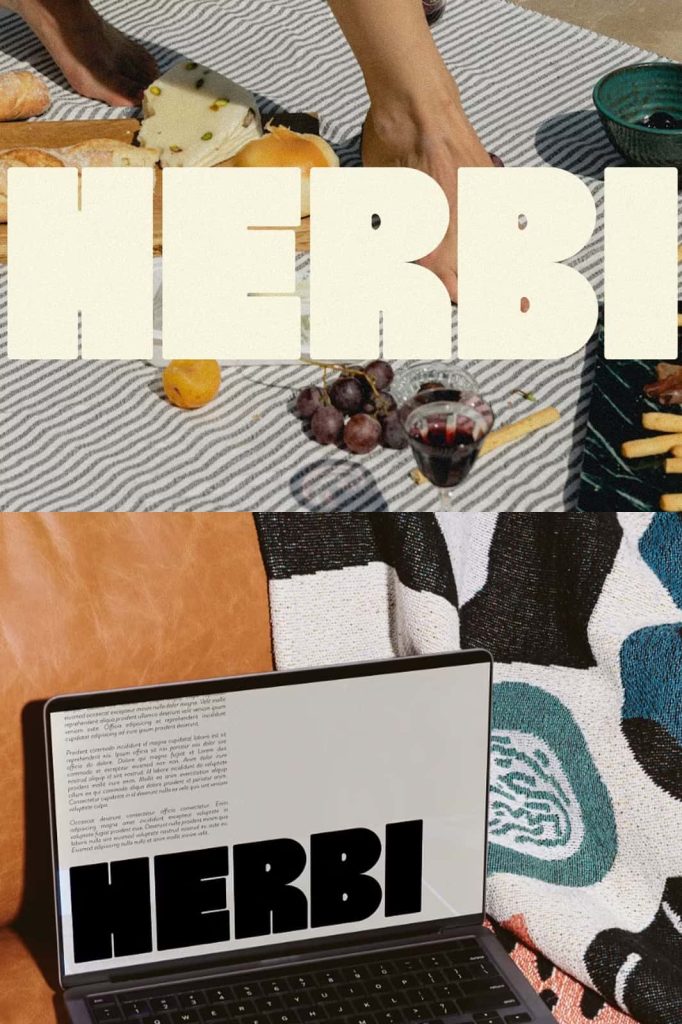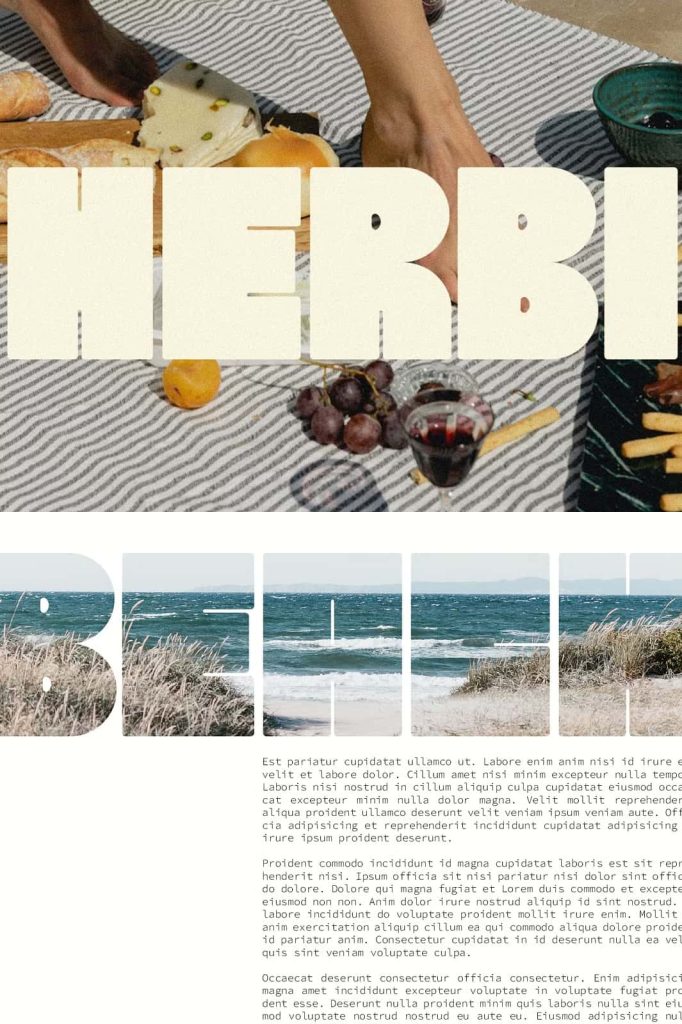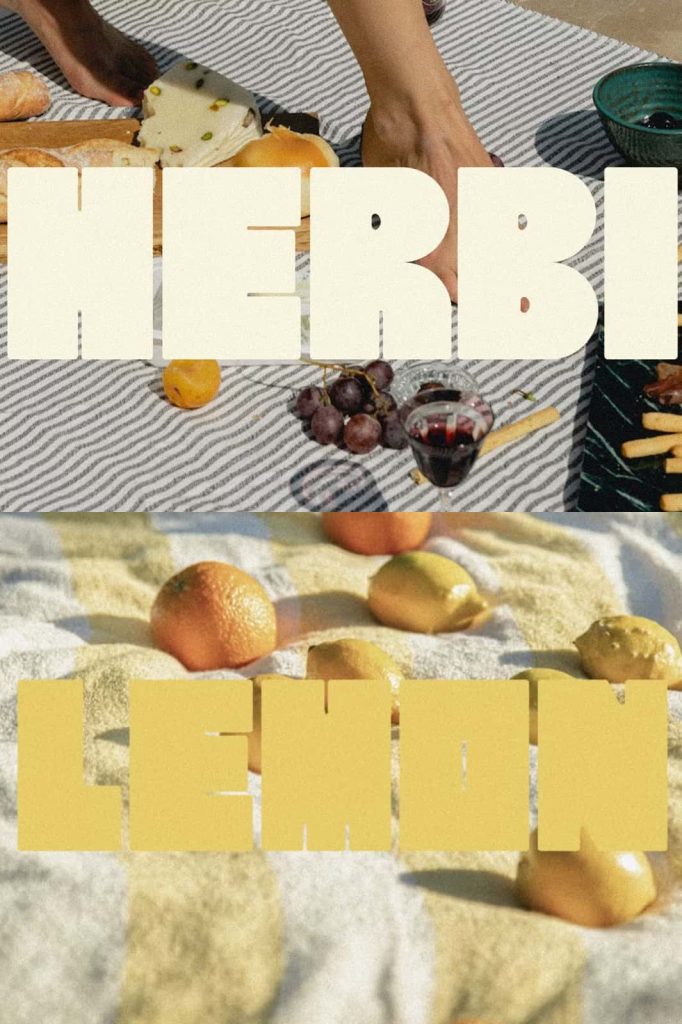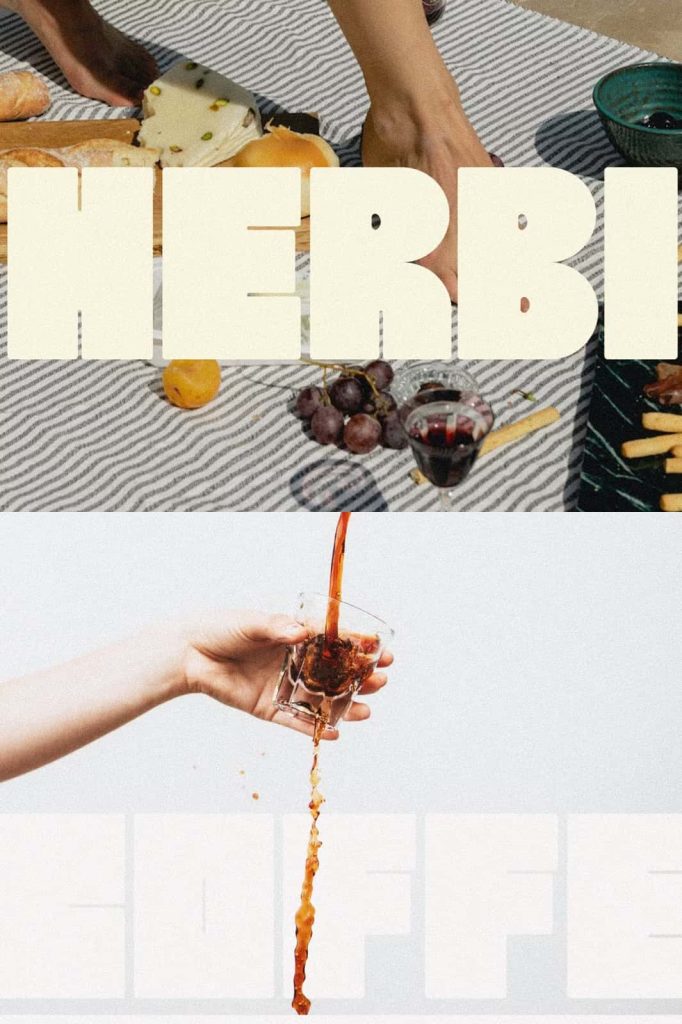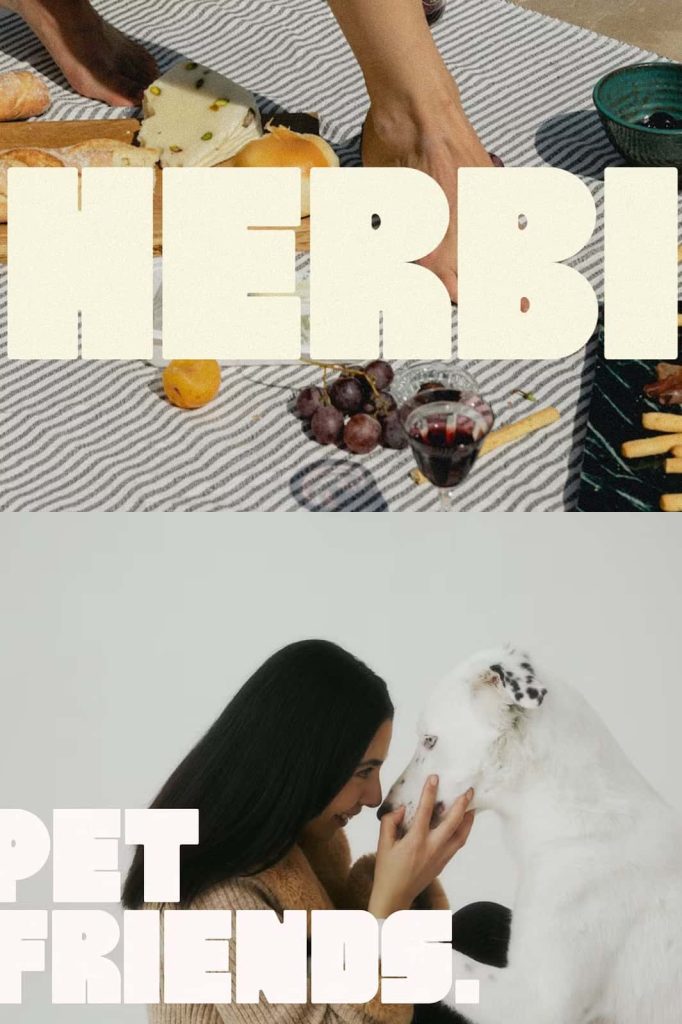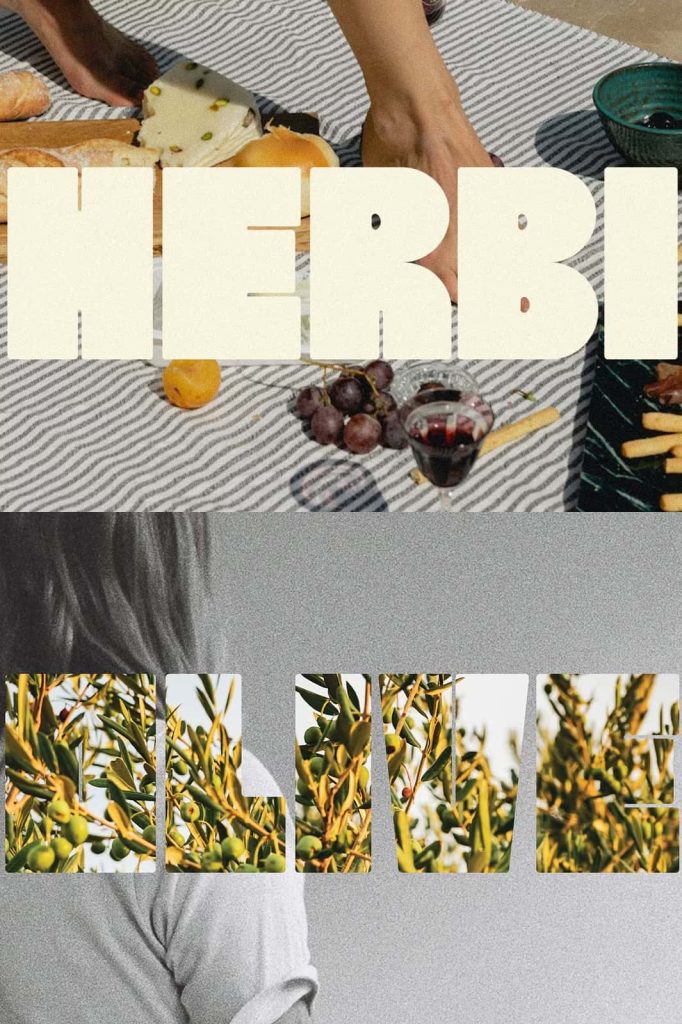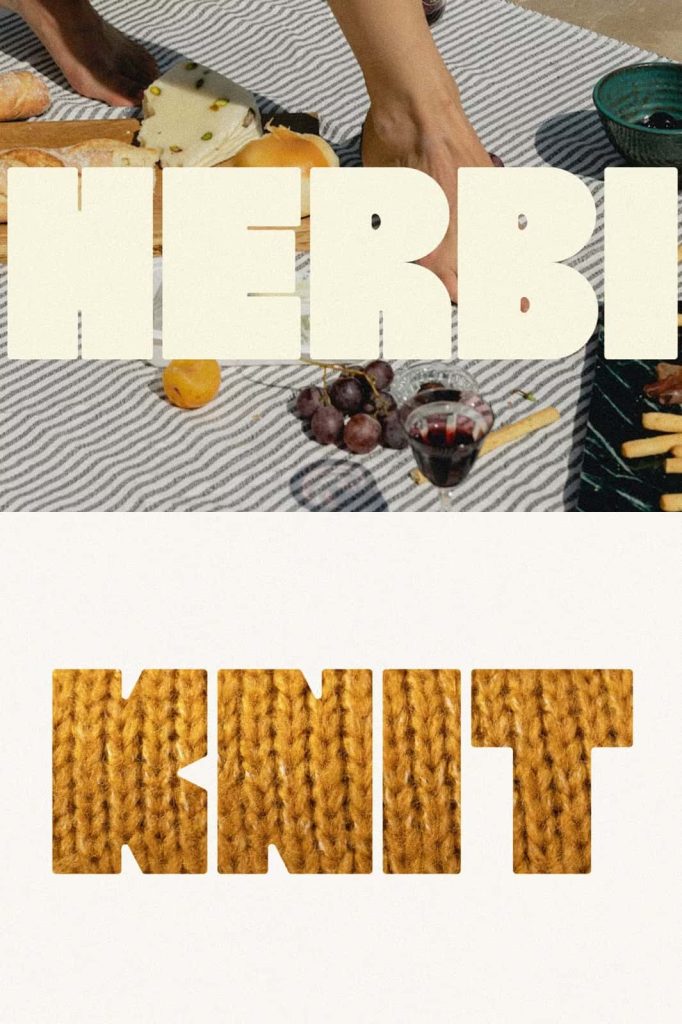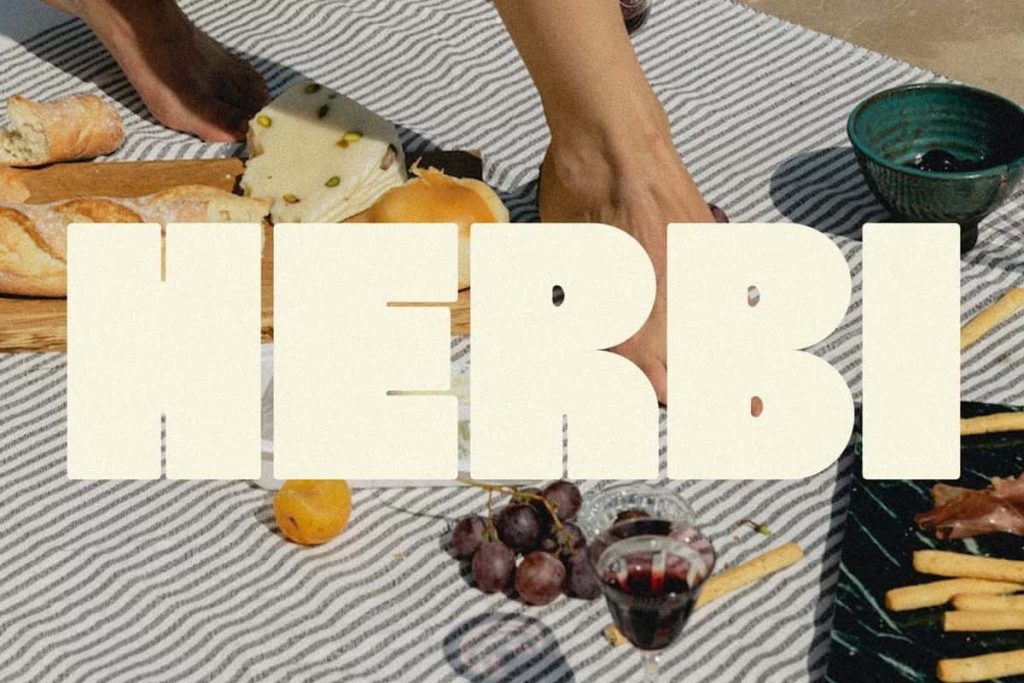
HERBI | A Chunky Sans Serif Font
HERBI Chunky Display Font
HERBI is a chunky, funky, and bold display font that instantly captures attention with its playful personality. Designed with large letterforms and soft rounded corners, this typeface brings a joyful and approachable character to modern typography. The design feels energetic and expressive while maintaining excellent readability, making it a powerful choice for designers who want their text to stand out.
Unlike overly aggressive display fonts, HERBI balances boldness with friendliness. Its thick strokes create a strong visual presence, while the soft edges give the letters a welcoming and cheerful appearance. This combination makes the font feel lively without appearing overwhelming or harsh.
A Bold Font with a Playful Personality
HERBI embraces a playful design philosophy that celebrates creativity and individuality. The chunky letterforms deliver strong visual impact, but the rounded shapes soften the overall tone. This contrast allows the font to communicate energy and confidence while still feeling warm and inviting.
Designers often search for display fonts that make a statement without sacrificing approachability. HERBI solves this challenge by blending bold structure with gentle curves. The result is a typeface that looks confident yet friendly, expressive yet easy to read.
This playful character makes HERBI especially suitable for projects that aim to capture attention and create a positive emotional response from viewers.
Soft Corners that Add Warmth
One of the most distinctive features of HERBI is its soft, rounded corners. Instead of using sharp edges or rigid angles, the font uses smooth curves that make the letters appear almost cushion-like. These shapes create a visual softness that enhances the friendly tone of the typeface.
The rounded design also improves readability by guiding the eye smoothly across each letter. This gentle flow allows the font to remain bold and prominent without feeling visually aggressive.
Because of this balance, HERBI performs well in both playful and professional contexts where designers want typography that feels strong but approachable.
Large Letterforms for Maximum Visual Impact
HERBI features large, spacious letterforms that occupy generous visual space. This design choice gives the font a strong presence in any layout. Whether used in print or digital media, the letters command attention and help important messages stand out.
The expansive shapes also allow designers to experiment with creative typographic treatments. The wide surfaces of each character provide an ideal canvas for decorative techniques such as image fills, textures, gradients, or color overlays.
Despite these bold proportions, HERBI maintains clear letter recognition. Readers can quickly identify each character, ensuring that messages remain readable even when designers apply creative visual effects.
Perfect for Image-Fill Typography
One of the unique strengths of HERBI is its compatibility with image-fill typography. Because the letters feature thick strokes and large interior spaces, designers can easily place images, patterns, or textures inside the characters without losing clarity.
This capability opens the door to many creative possibilities. Designers can fill letters with photography, colorful illustrations, or graphic textures to produce eye-catching headlines and titles.
For posters, social media graphics, or promotional materials, this technique can transform simple text into a powerful visual centerpiece.
Ideal for Headlines and Display Text
HERBI performs best as a display font where its bold shapes and playful energy can shine. Designers often use it for headlines, titles, and short phrases that require strong visual emphasis.
In magazine layouts, website banners, or promotional posters, the font immediately draws attention. Its chunky structure ensures that words remain visible even from a distance, making it especially effective for impactful typography.
The friendly personality of the typeface also helps messages feel more engaging and approachable to viewers.
Great for Branding and Creative Projects
HERBI works exceptionally well in branding and creative design environments. Businesses and designers who want a fun, memorable identity can benefit from the distinctive look of this typeface.
The font fits naturally into projects such as logo design, product packaging, merchandise graphics, children’s branding, and entertainment marketing. Its playful tone communicates creativity and positivity, which helps brands connect with audiences on a more emotional level.
Creative professionals can also use HERBI for social media graphics, event posters, advertising campaigns, and playful editorial designs.
A Typeface that Feels Friendly and Expressive
HERBI offers more than just bold typography. It delivers a visual experience that feels lively, cheerful, and approachable. The rounded shapes give the letters a comforting quality, almost as if the typeface invites viewers to interact with it.
This unique balance between strength and softness allows HERBI to stand apart from many traditional display fonts. Instead of relying purely on size or weight for impact, the font uses personality and character to create lasting impressions.
Designers who choose HERBI gain access to a typeface that celebrates creativity while maintaining clarity and usability. Its chunky structure, playful attitude, and versatile design make it a valuable tool for any project that needs bold, expressive typography.